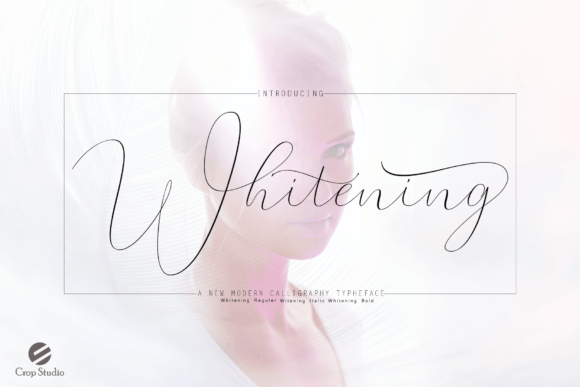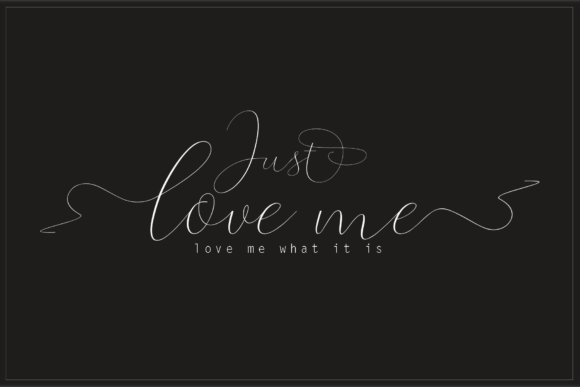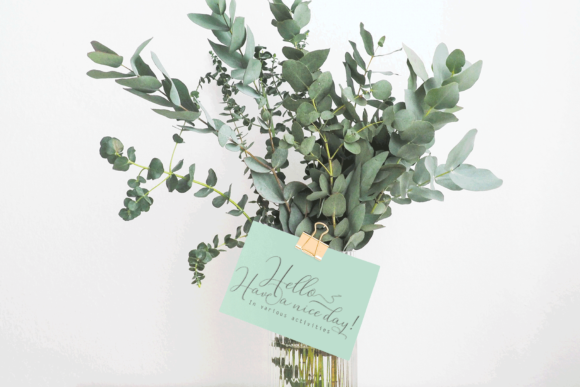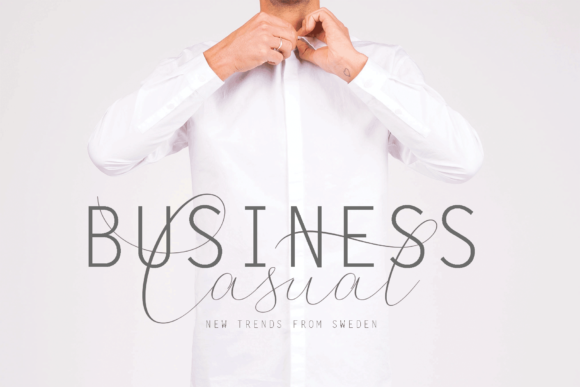
Whitening Font
About Whitening Font
Whitening is a beautiful and comprehensive font family, ideal for use in a wide range of print works. This natural and handwritten font is ideal as the center point to your designs, given its wide range of glyphs and alternate characters.